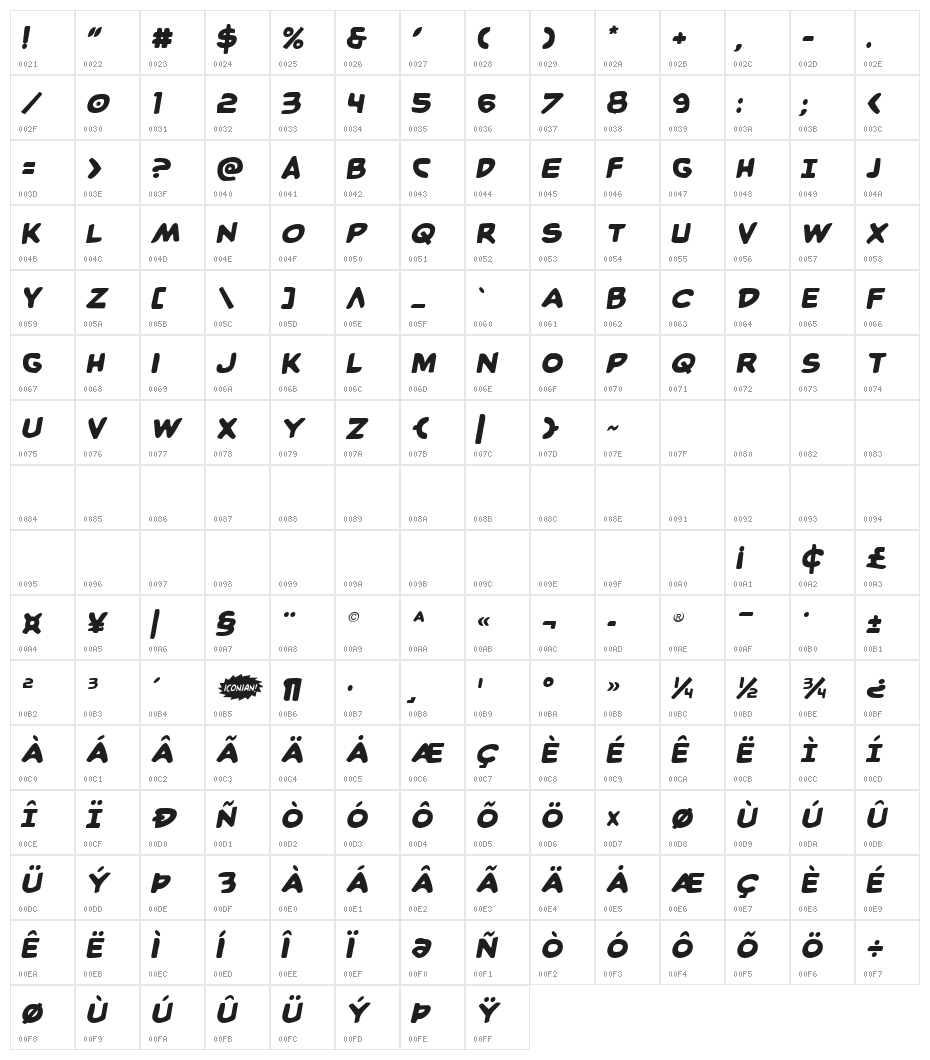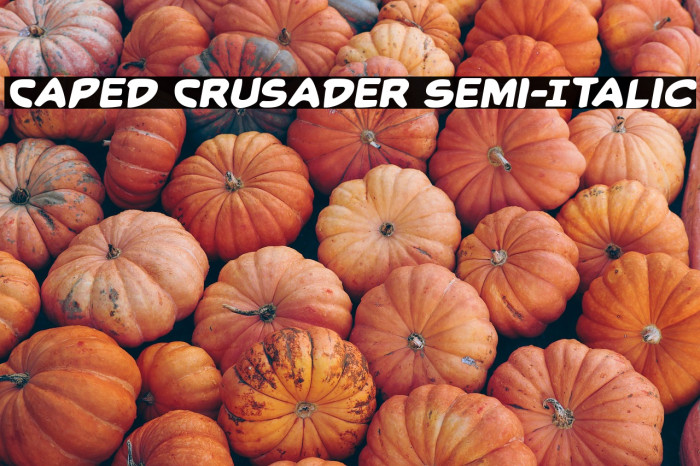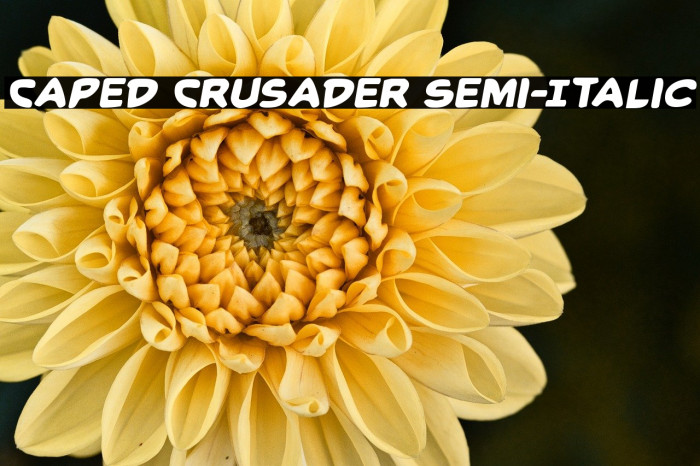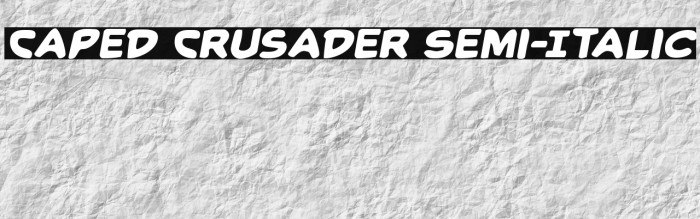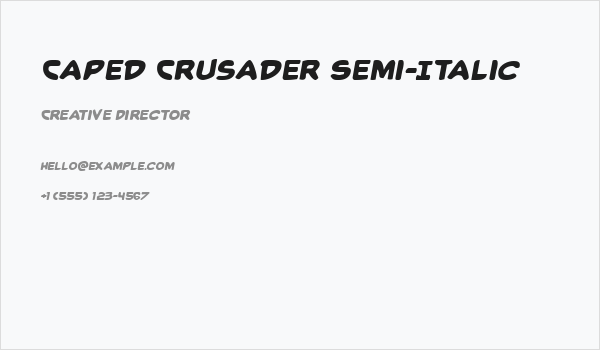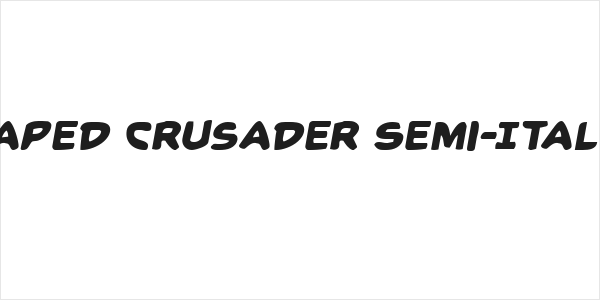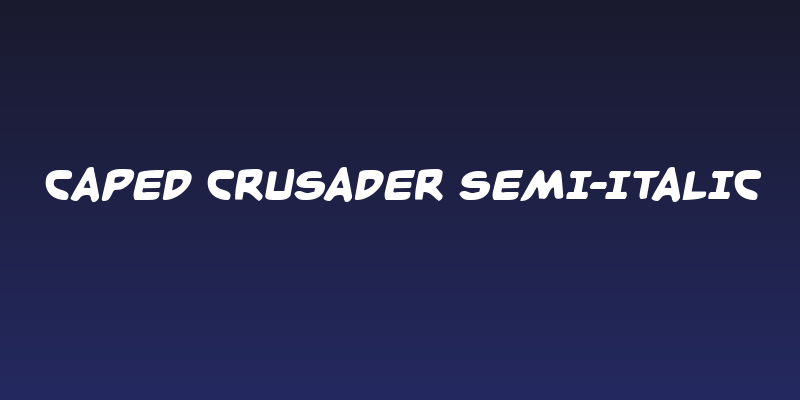
Caped Crusader Semi-Italic Font
Caped Crusader Semi-Italic Description
This font exudes a bold and dynamic presence, characterized by its thick, rounded strokes and a slight italic slant that adds a sense of movement and energy. The letters are well-spaced, ensuring readability while maintaining a playful and robust appearance. The uppercase and lowercase letters share a consistent style, with the numerals and special characters complementing the overall design. The font's unique style makes it suitable for projects that require a strong visual impact, such as comic book titles, posters, and branding materials.
| Proposed Projects | Ideal for comic book titles, posters, branding materials, and any project needing a strong visual impact. |